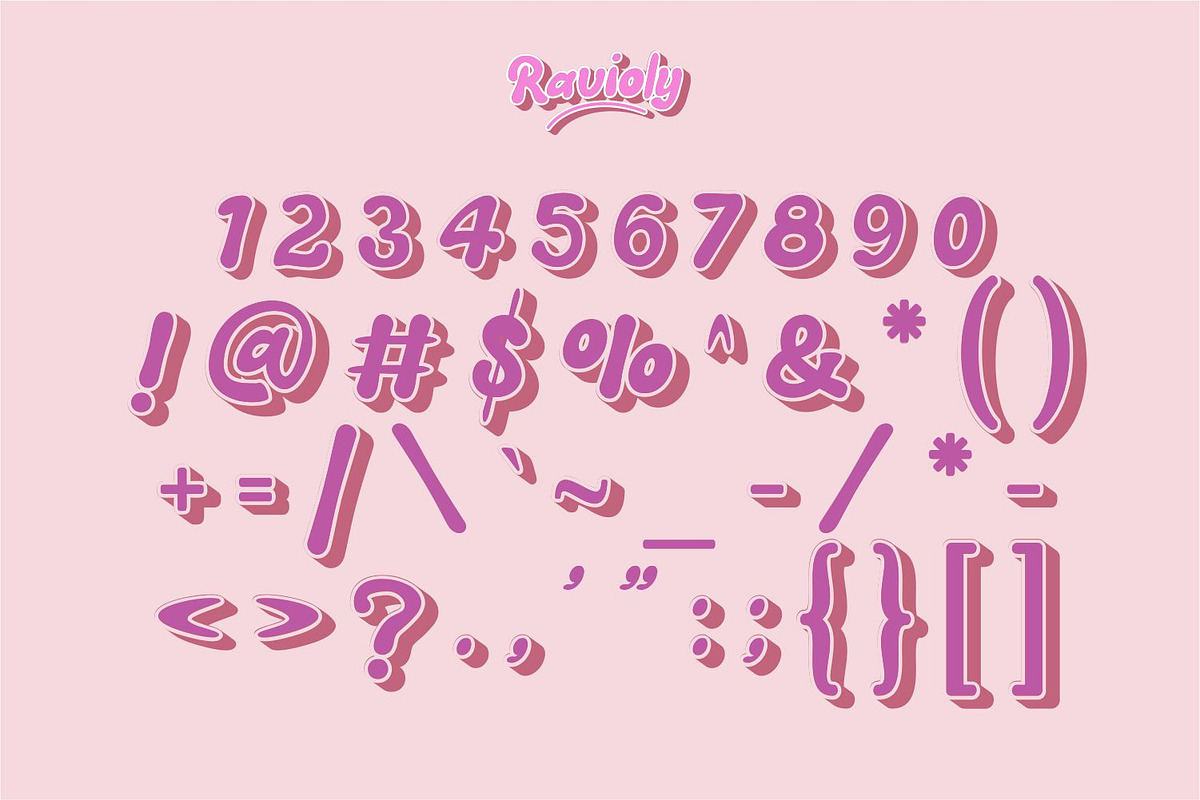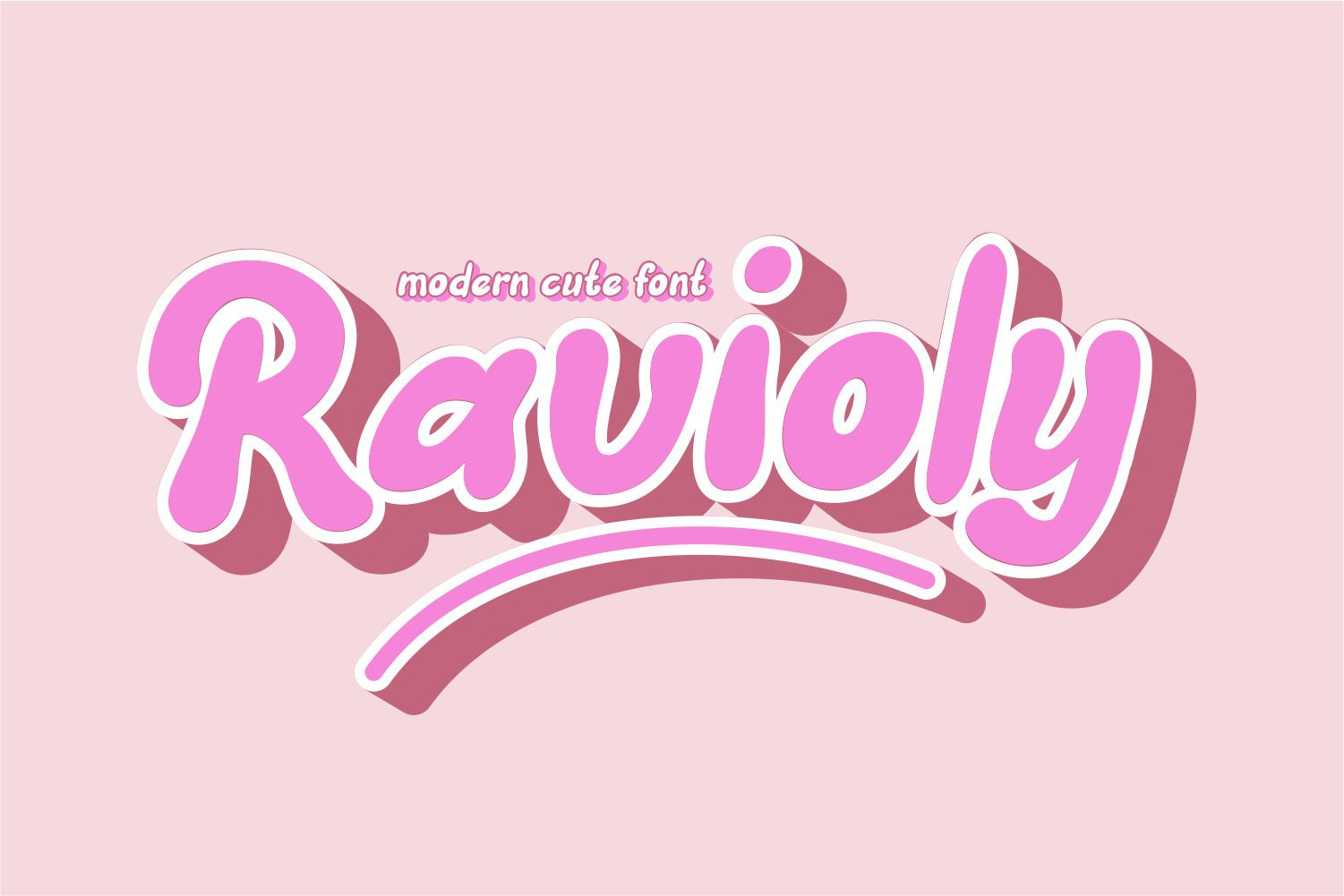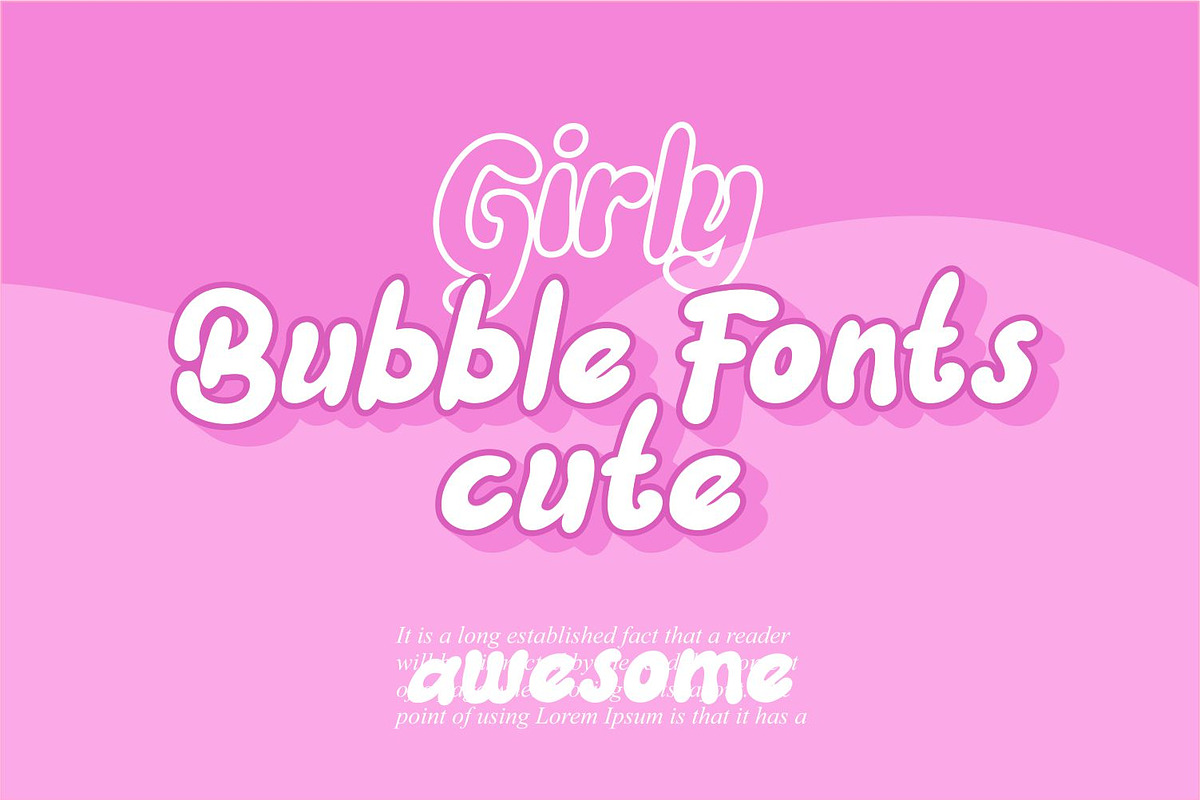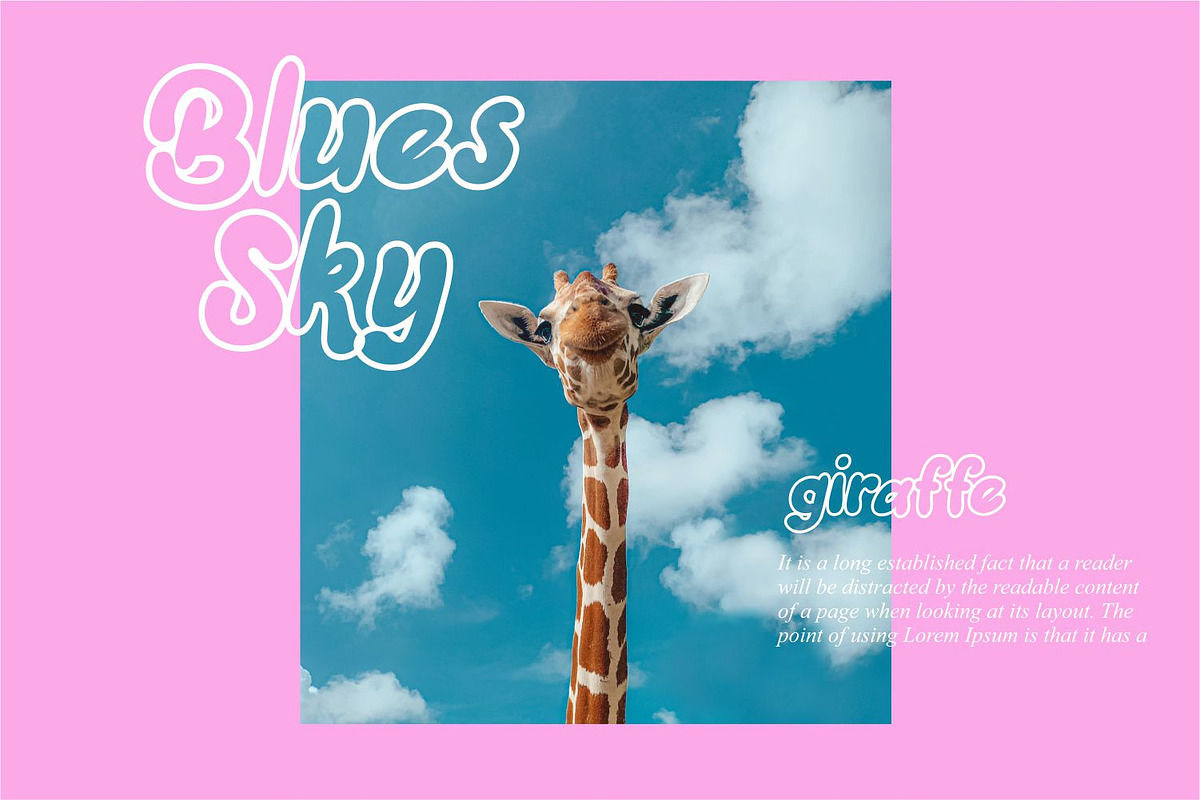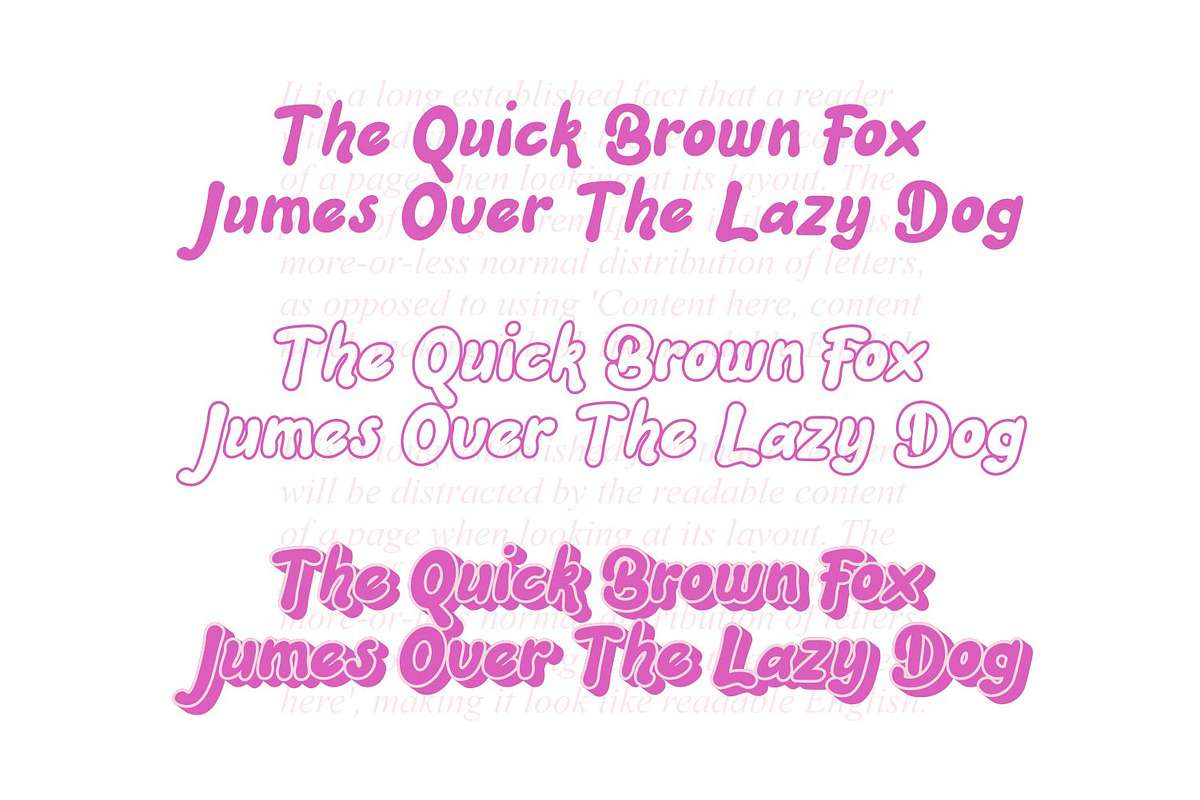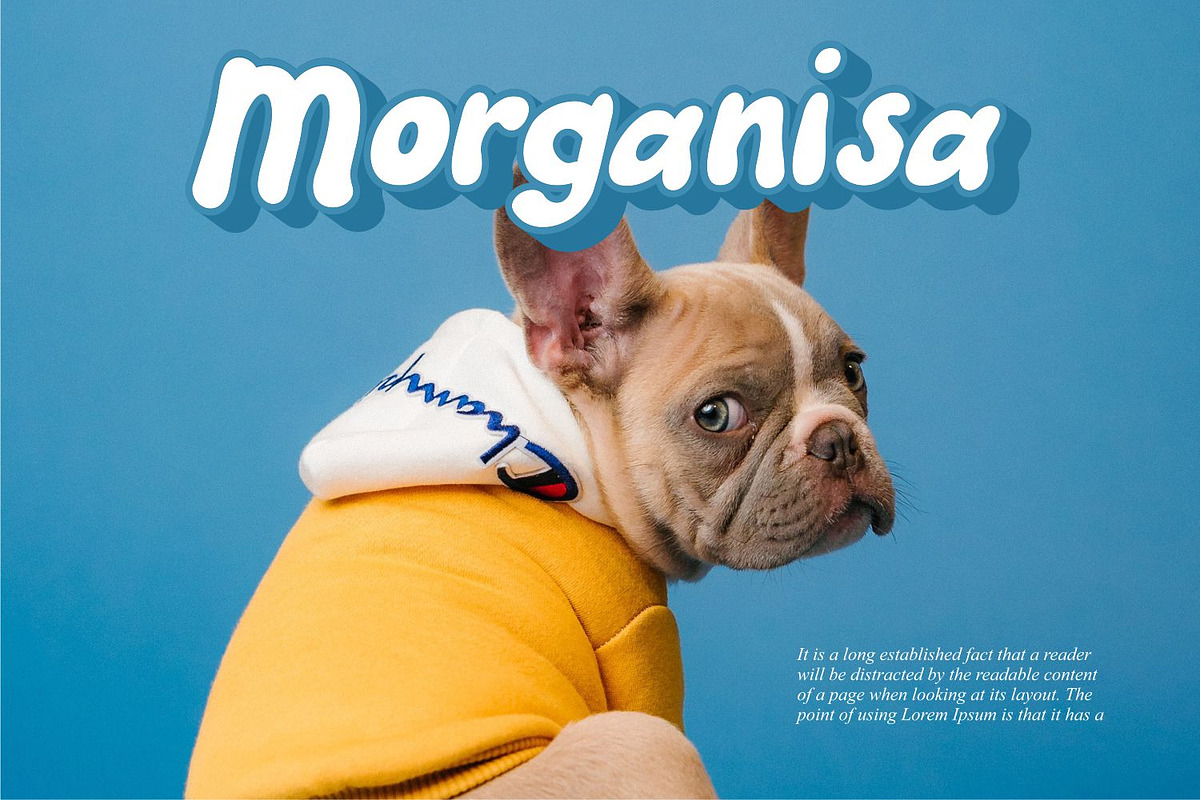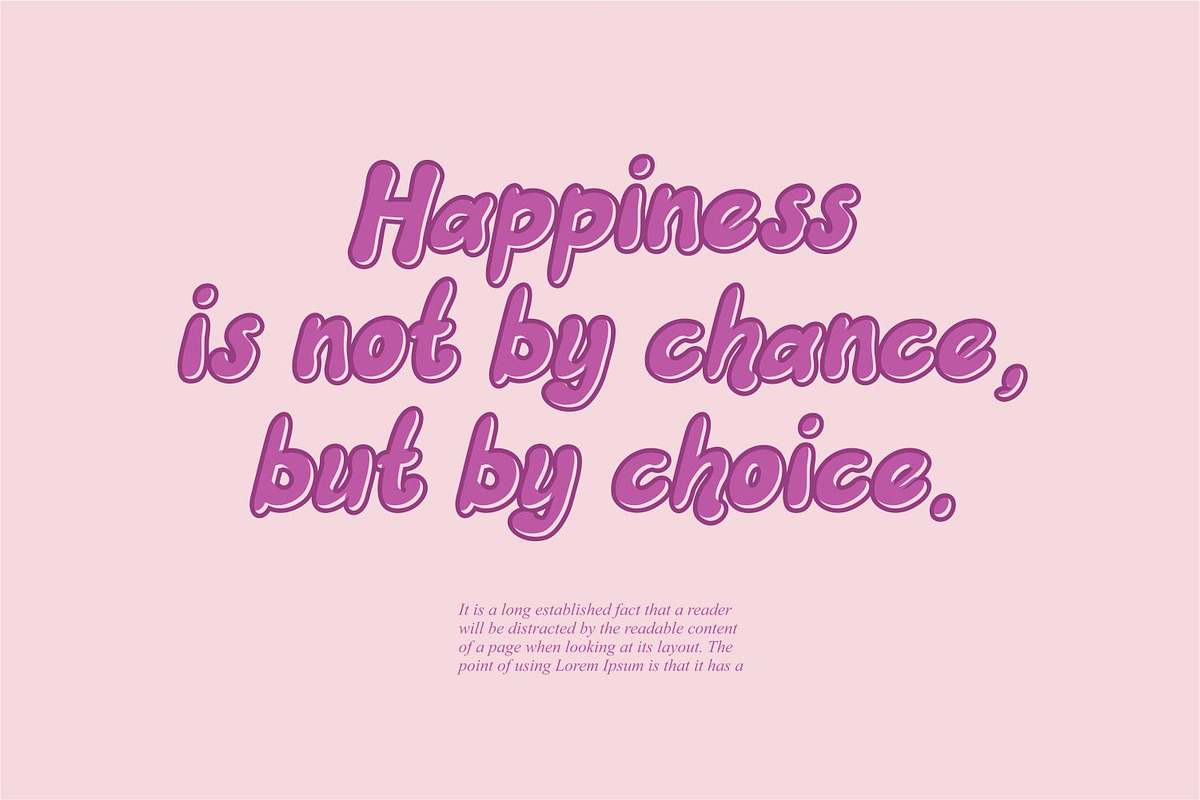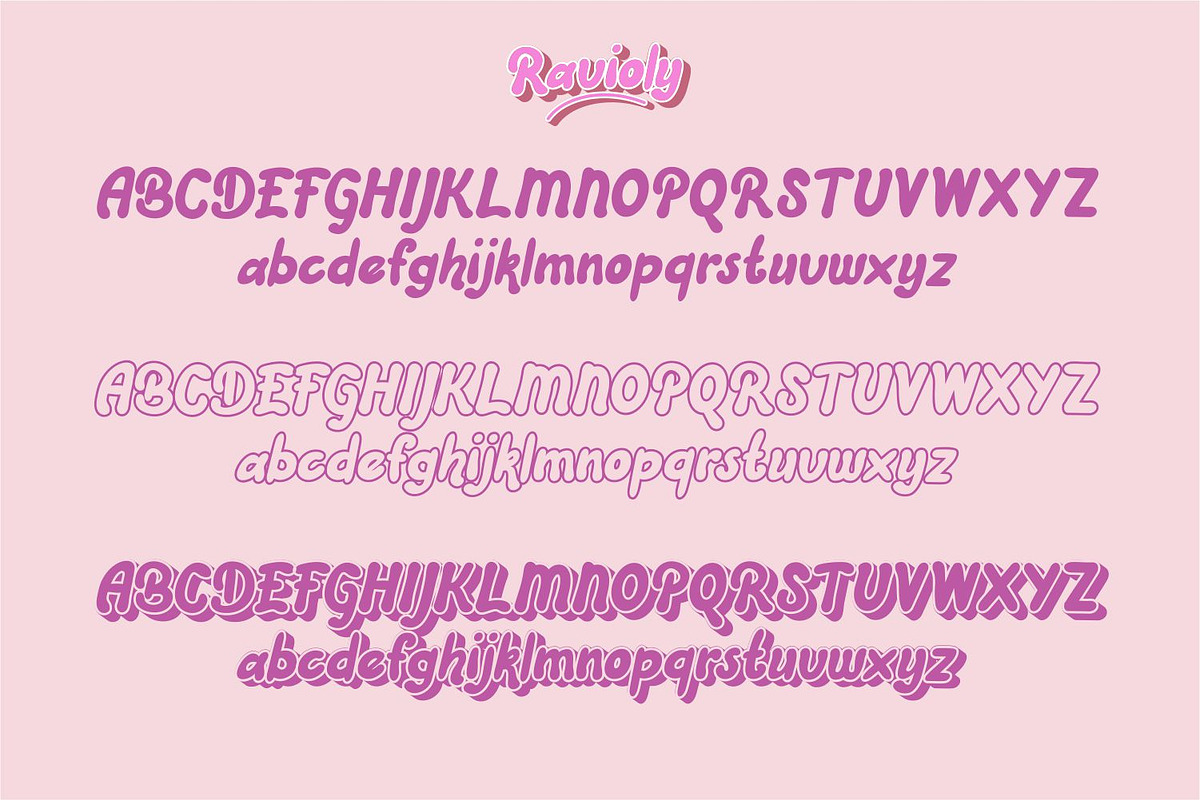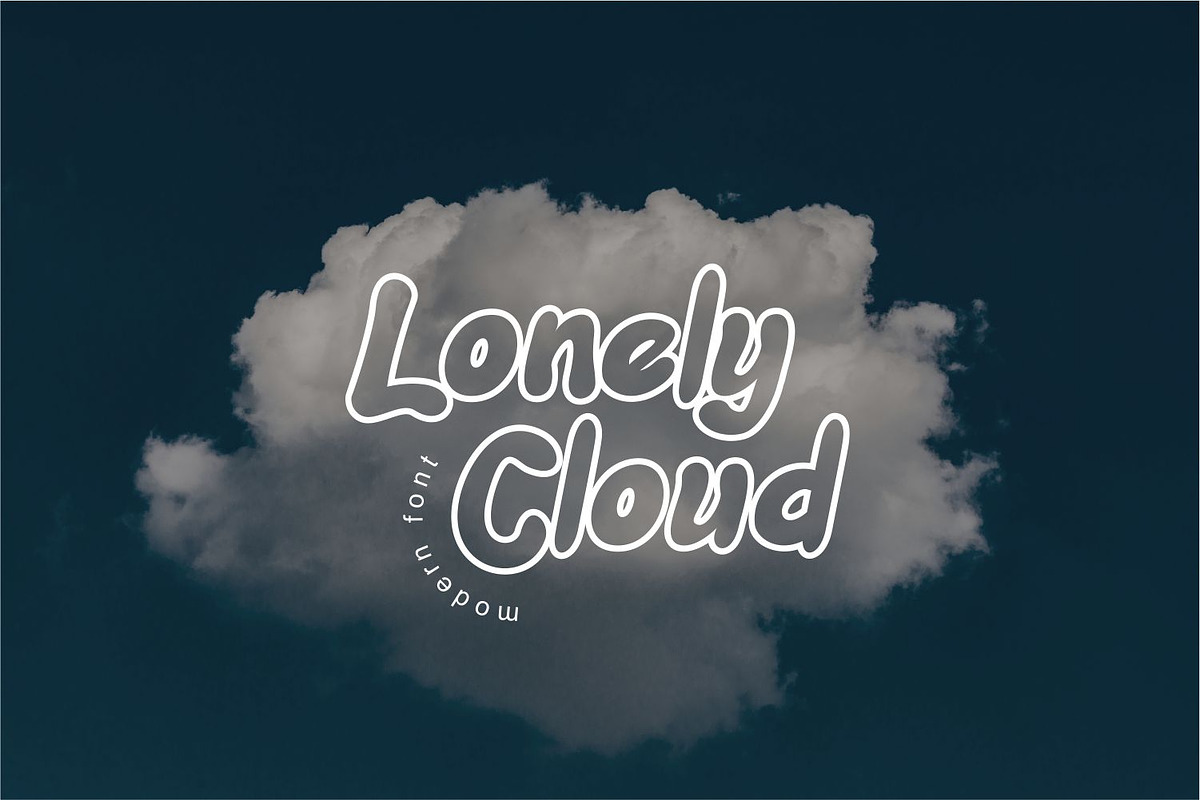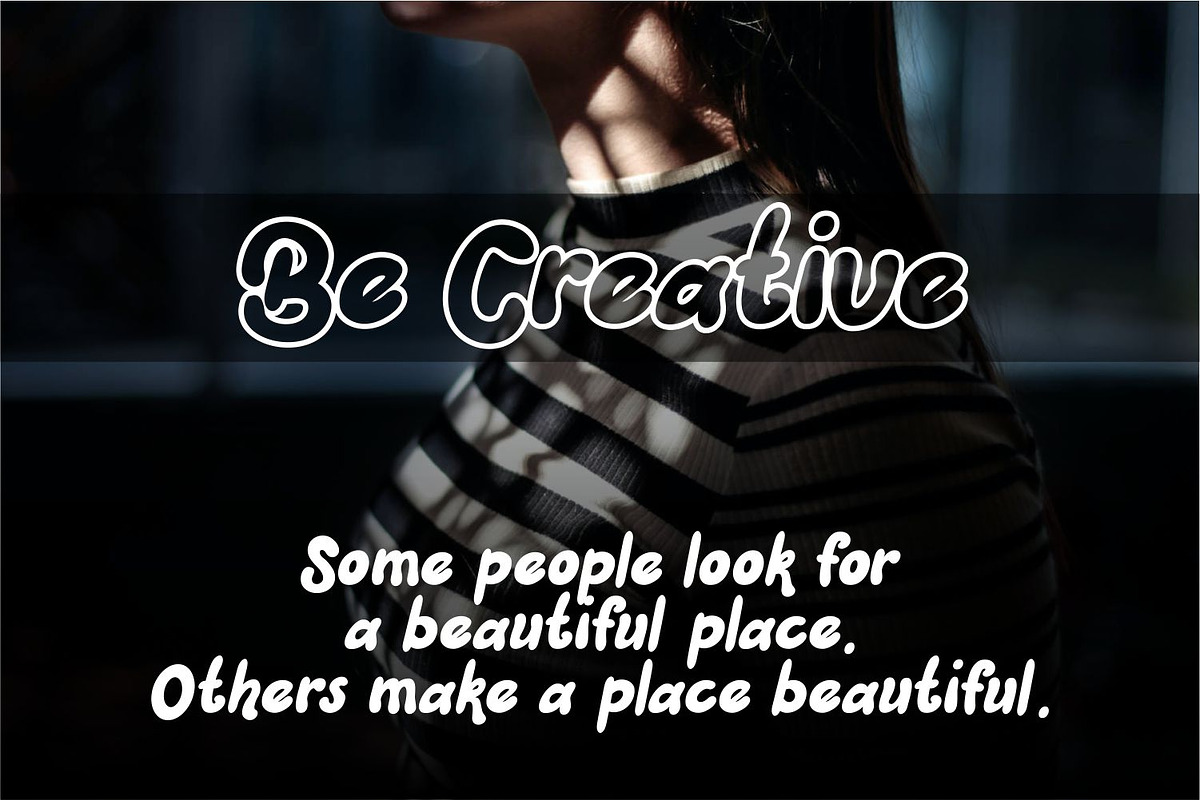
Ravioly Cute Bubble Font
The Ravioly Font is a delightful and charming typeface that exudes cuteness and whimsy with its playful design. Inspired by the world of childhood imagination and fun, this font features soft curves, friendly letterforms, and a sense of warmth that instantly brightens any design project. Whether you’re creating greeting cards, children’s books, or branding materials for cute and quirky products, the Ravioly Font brings a touch of sweetness that captures the heart. Its versatility and playful nature make it perfect for adding a dose of charm to your designs.